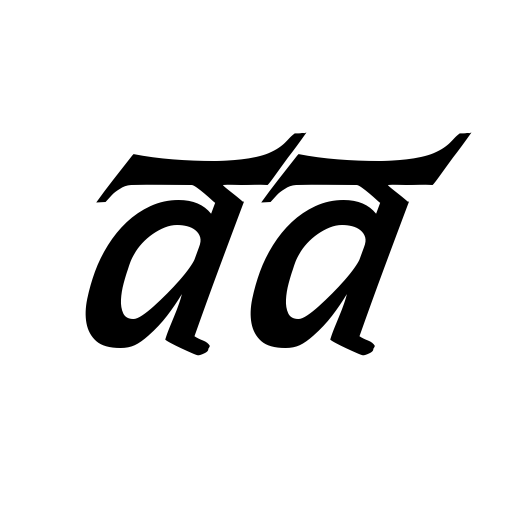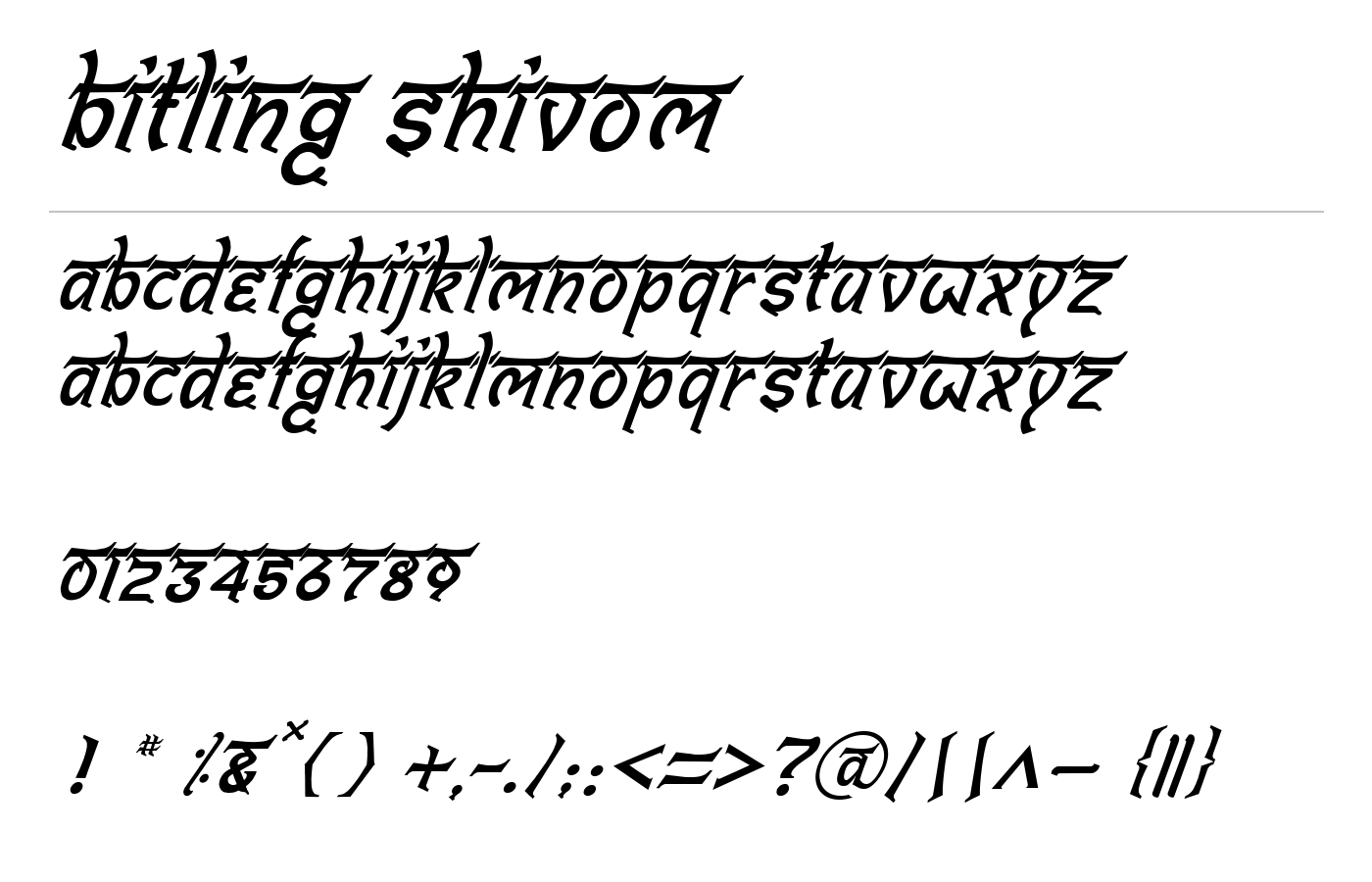
Bitling Shivom is a unique serif font with a strong calligraphic flair, featuring sharp, angular strokes and a pronounced slant that gives it a dynamic, handwritten feel. Its distinct letterforms and elegant curves create a sense of sophistication and creativity, making it ideal for artistic projects, logos, and branding that seek a bold yet refined appearance. This font works best in display sizes where its decorative details can shine, adding character and personality to any design.
Bitling shivom Font
About Bitling shivom Font